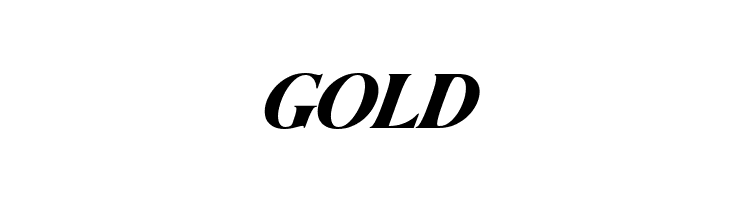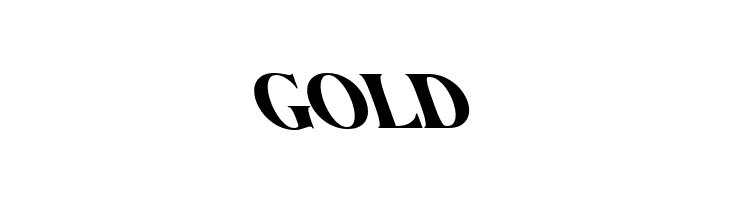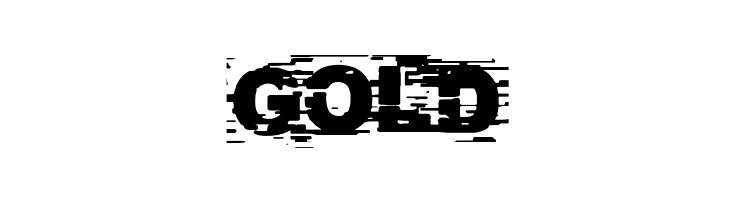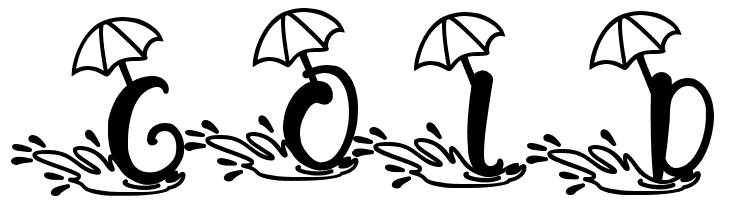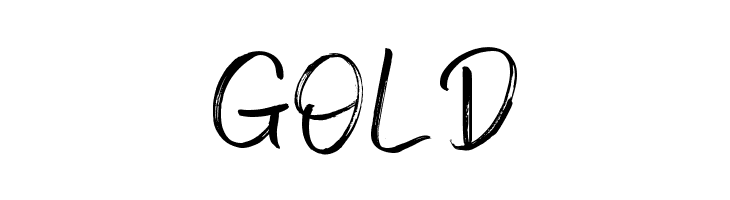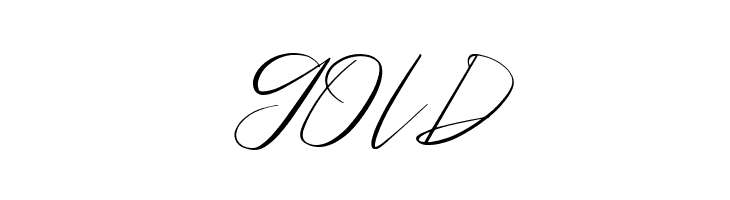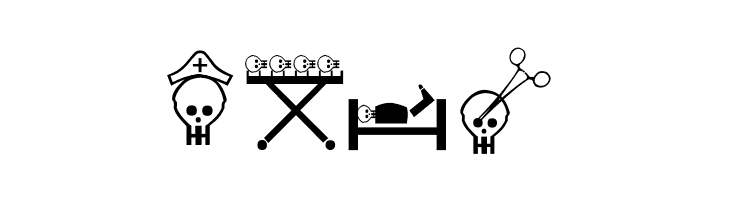
• Hello Summer - Personal Use
A playful, summer-themed font with beach motifs and a casual, handwritten style.
• Hellomate
A lively, handwritten script font with bold, connected letters.
• Hellorain
A dynamic brush script font with an energetic, hand-drawn style.
• HelloViennaMacabre
A decorative font featuring macabre and medical-themed illustrations.
• Hellowin
A bold, high-contrast serif font with dramatic flair.
• Hellowin Italic
A bold, high-contrast italic font with elegant serifs and dynamic movement.
• Hellowin Oblique
A bold, oblique serif font with sharp angles and strong presence.
• Hells Rider Decay
A bold, distressed font with a rugged, vintage appearance.
• Helveglitch
A bold, glitch-inspired font with a distressed, fragmented appearance.
• henrietta
A cursive, handwritten font with elegant, flowing strokes.